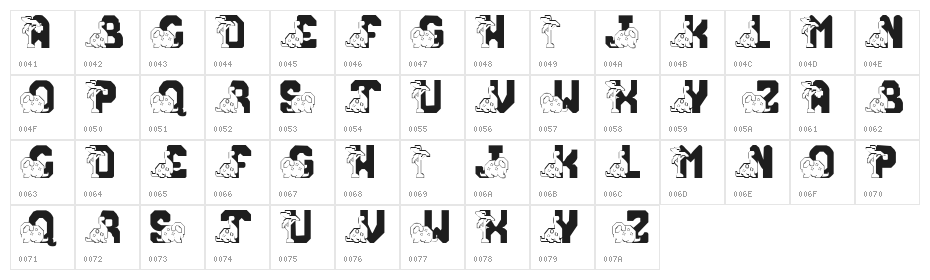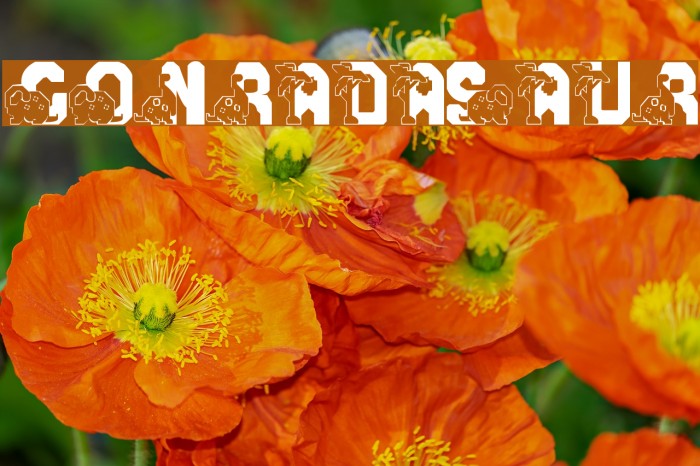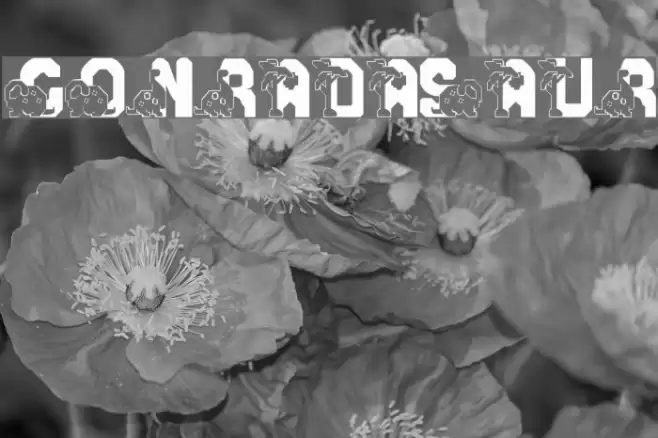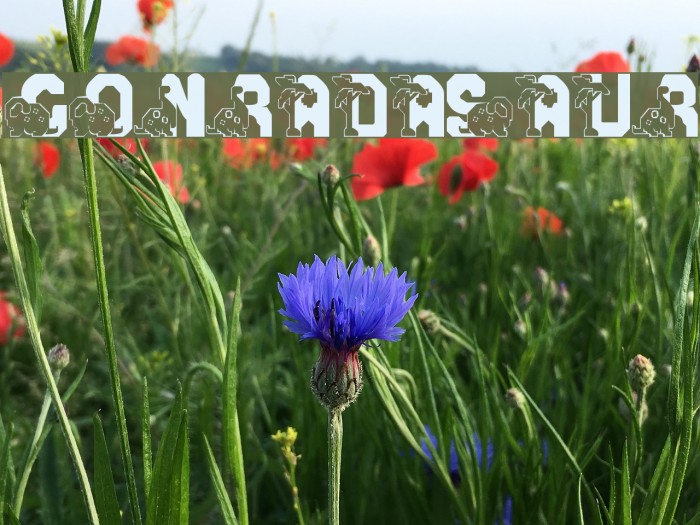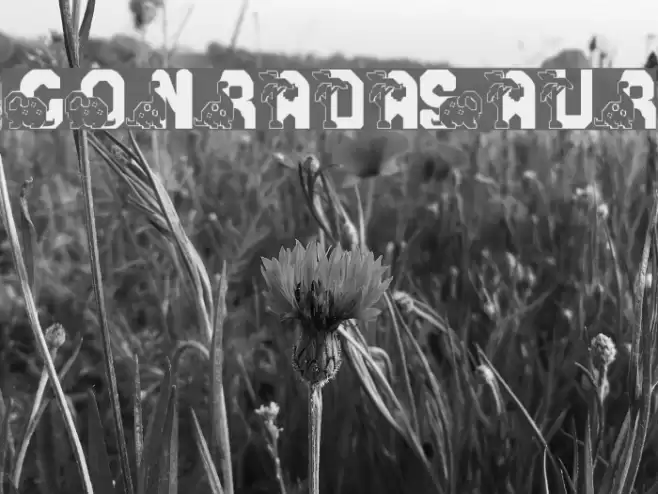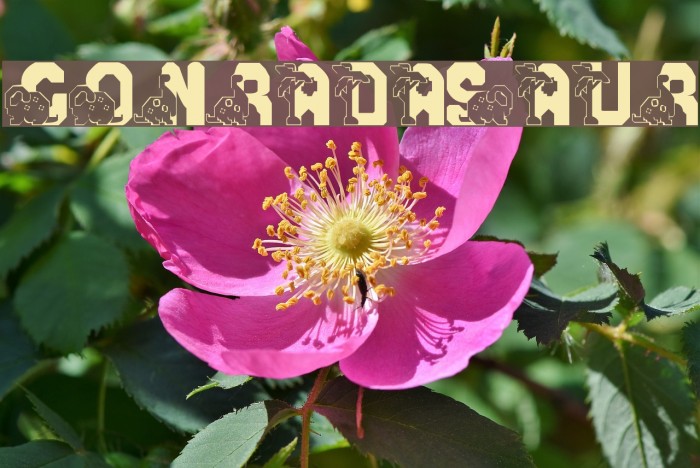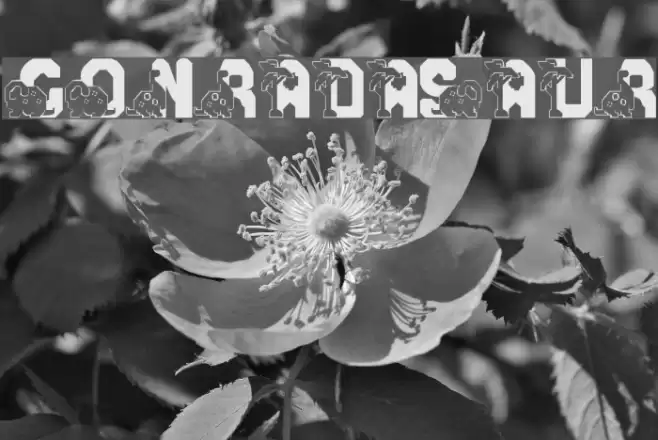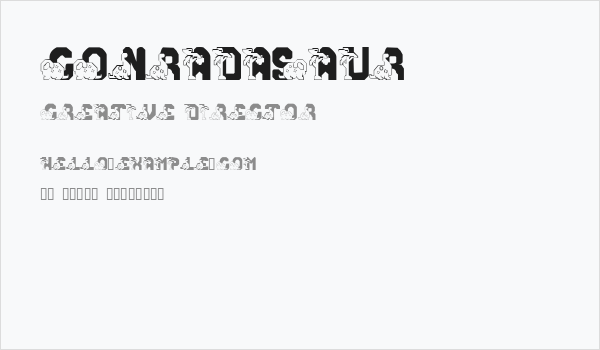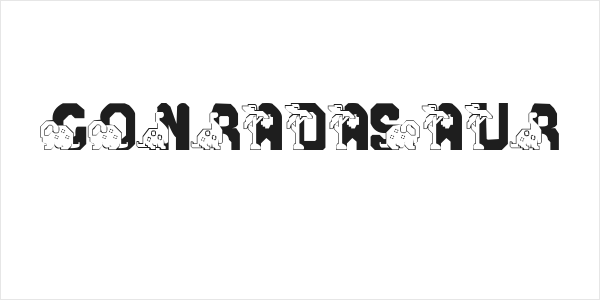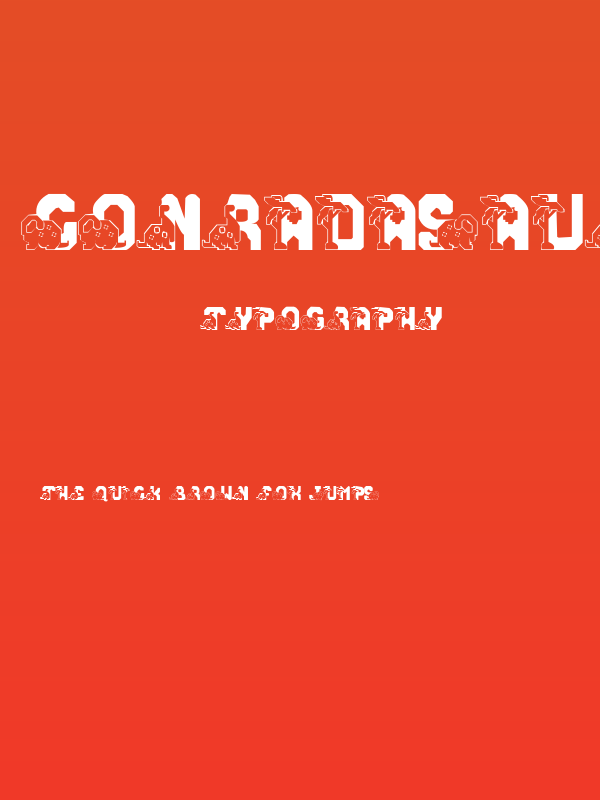
Conradasaur Font
Conradasaur Description
This playful and whimsical font features a unique design where each letter is integrated with a cartoon dinosaur motif. The characters are bold and blocky, providing a strong presence while the dinosaur illustrations add a fun and creative twist. This font is perfect for projects that aim to capture attention with a lighthearted and imaginative style. The combination of bold lettering and detailed illustrations makes it stand out, suitable for children's books, playful branding, or themed events.
Overall StyleWhimsical, Playful
Proposed ProjectsIdeal for children's books, playful branding, themed events, and educational materials.